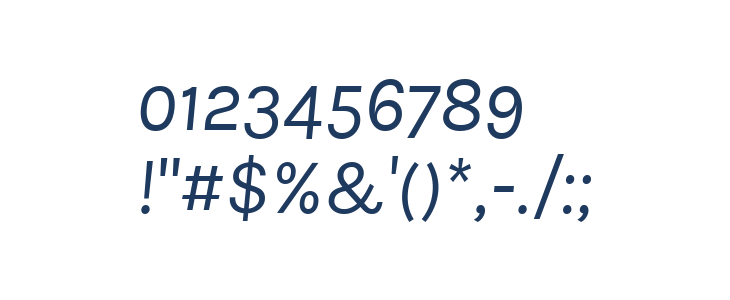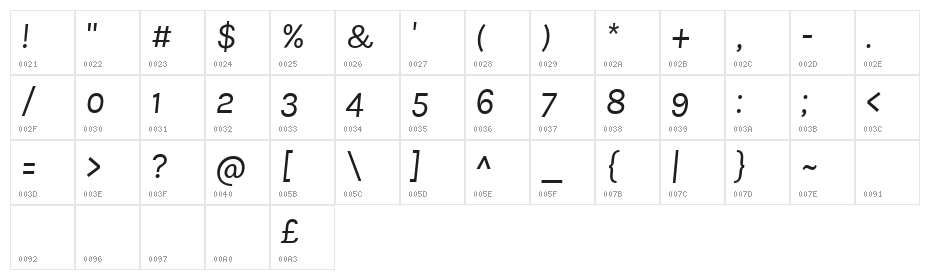
Karla Tamil Inclined Font
Karla Tamil Inclined Description
This font features a clean and modern design with a slight inclination, giving it a dynamic and contemporary feel. The characters are well-proportioned with a consistent stroke width, providing a balanced appearance. The numerals and special characters maintain the same stylistic approach, ensuring uniformity across all elements. The font's simplicity and clarity make it highly legible, suitable for both digital and print media. Its versatility allows it to be used in various contexts, from professional documents to creative projects.
Use CaseHeadlines, Body text, Logos
Proposed ProjectsIdeal for branding, web design, advertising, and editorial projects.